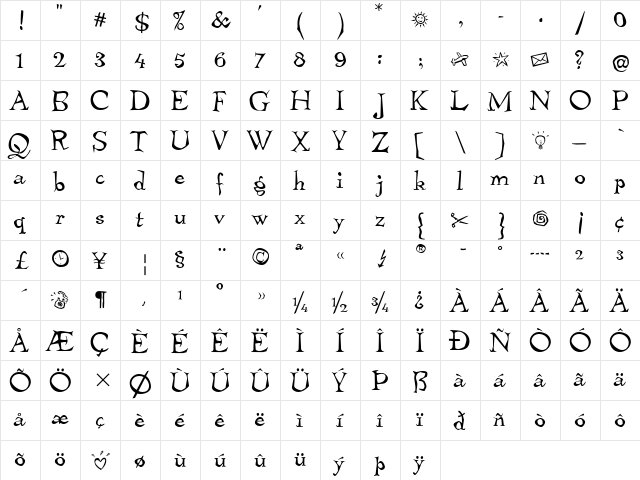
Temble ITC Normal
Design Context for Temble ITC Typeface
Temble ITC is a composed and adaptable typeface that performs quietly and consistently across a wide range of design contexts.